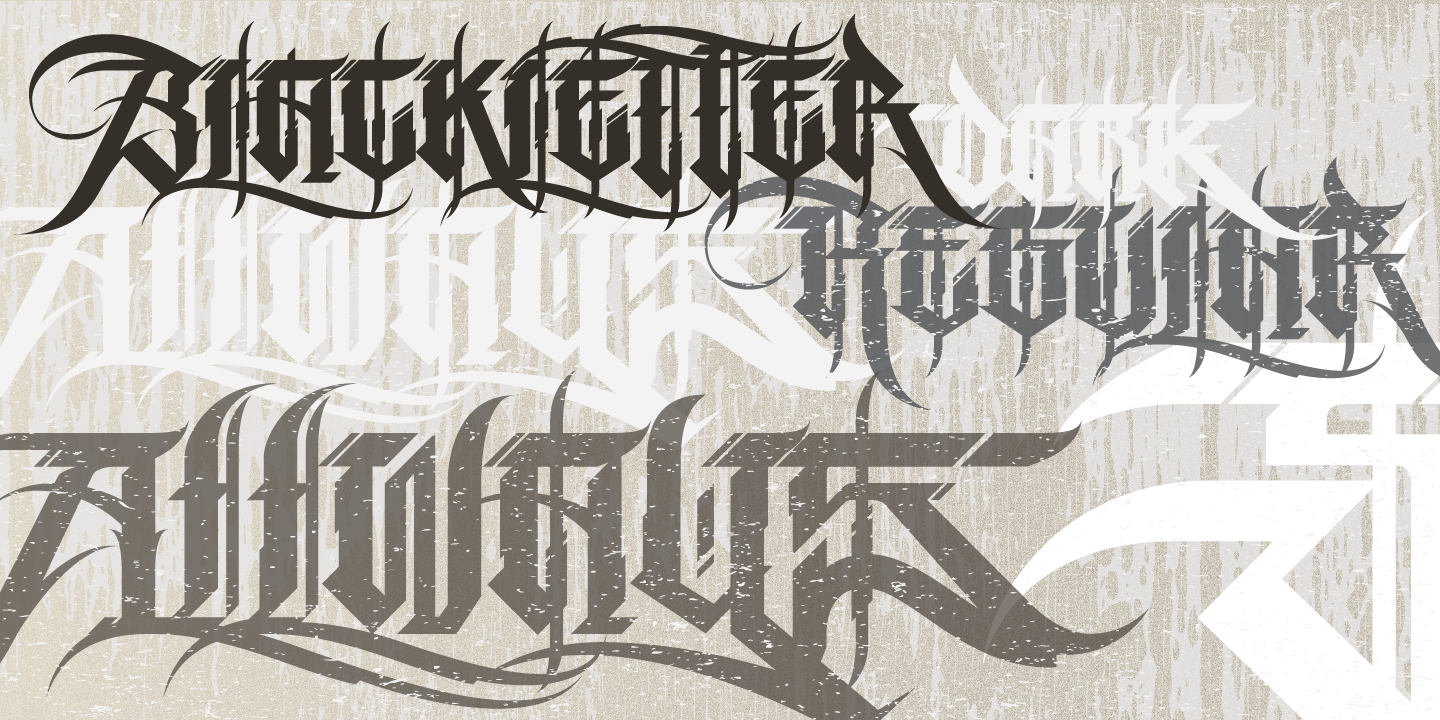
Rase Grimm Font Free Download is a distinctive and often rugged typeface, perfect for designs that aim to convey a sense of strength, boldness, or an edgy, industrial aesthetic. Imagine it making a powerful statement on heavy metal album covers, dynamic gaming titles, impactful streetwear branding, or gritty movie posters for action films. Its strong, often distressed or textured character also makes it an excellent choice for unique event promotions, distinctive apparel designs, and attention-grabbing social media visuals for alternative brands. Whether your aim is to convey a sense of raw power, urban authenticity, or a bold, uncompromising style, Rase Grimm Font offers the stylistic punch to elevate your creative vision.
What makes Rase Grimm Font truly exciting is its unmissable personality and raw energy. It often features a distressed texture, sharp angles, or a handmade feel that gives it an authentic, powerful vibe. This isn't just another display font; it's a meticulously crafted typeface that injects an immediate sense of character and impact into any text. Designers will appreciate its strong visual appeal and how it can instantly infuse a design with a dynamic, bold presence, making it a compelling choice for projects that need to stand out and make a memorable, unapologetic statement.
The Rase Grimm Font family, while typically designed with its unique display qualities in mind, often provides versatility through different weights or styles. You might find a Regular weight that captures its core aesthetic, potentially accompanied by Bold versions for increased impact, or even Distressed variations to enhance its gritty feel. Some families might also offer stylistic alternatives that add further creative options, especially useful for mimicking natural hand-lettering or achieving a more custom look. This focused yet adaptable range within the family ensures that Rase Grimm Font Free Download can be effectively utilized across various applications where its distinctive bold and often rugged style is desired.